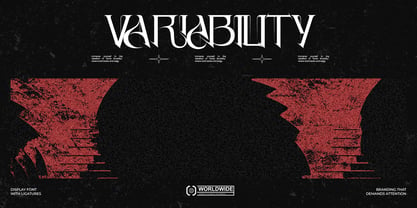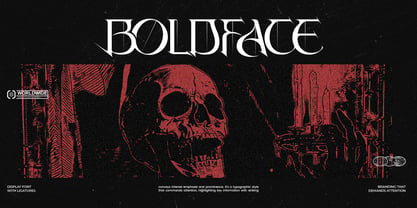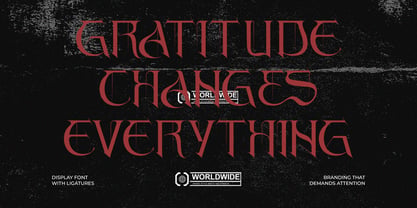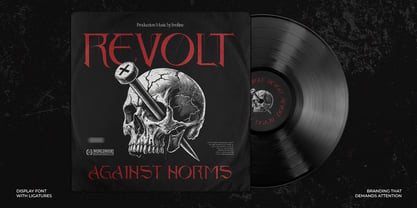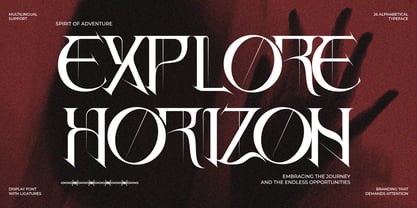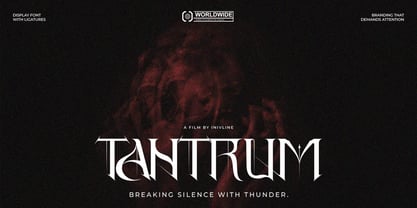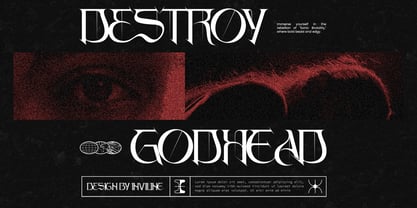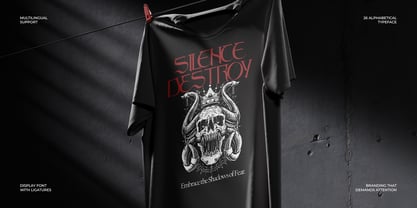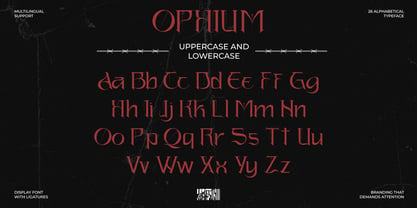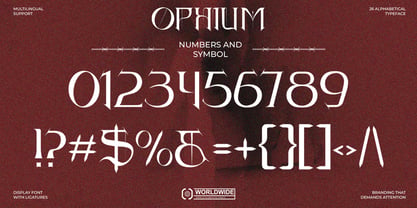
Ophium
by Inviline
The Ophium Font Family was designed by Virgiawan Listanto and published by Inviline. Ophium contains 1 styles. More about this family
Ophium is a bold brutalist display typeface that masterfully combines sharp elegance with rebellious energy. It features both uppercase and lowercase letters, numbers, punctuation, and multilingual support. With powerful alternates and striking ligatures, Ophium is designed to create dramatic contrast and a commanding presence in every composition. This typeface is perfect for a variety of applications, including album covers, streetwear branding, posters, editorial headlines, music merchandise, cinematic titles, logo design, fashion campaigns, and bold visual identities that demand attention, attitude, and uncompromised character.
Designers: Virgiawan Listanto
Foundry: Inviline